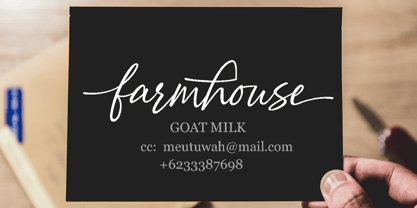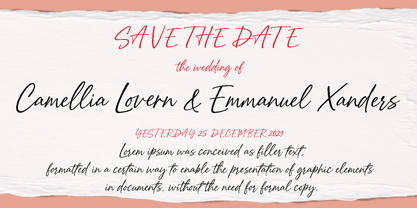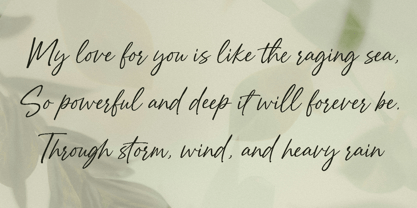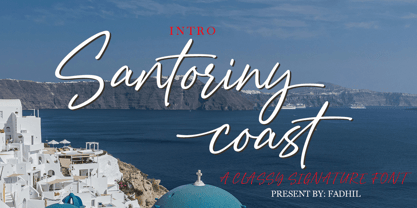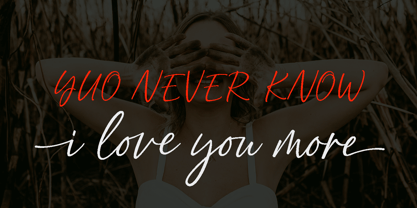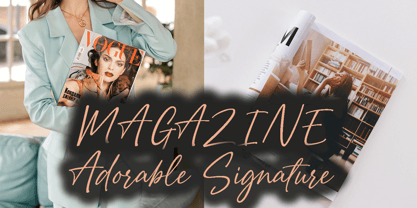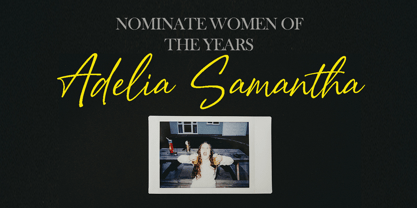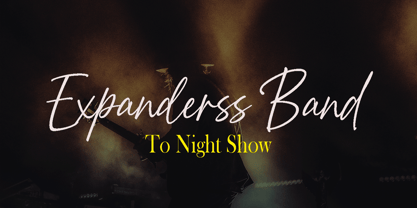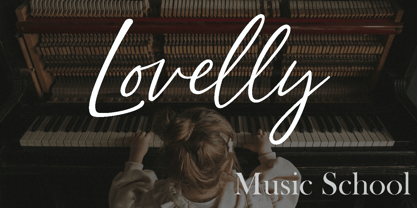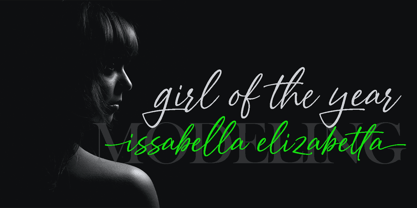
Santoriny Coast
by Meutuwah
The Santoriny Coast Font Family was designed by Fadhil Aqsa and published by Meutuwah. Santoriny Coast contains 1 styles.
Santoriny Coast
Hello Font Lovers. Addam Signature, is another lovely modern script, signature and display font, which is combining the style of classic calligraphy with an modern style. combines from copperplate to contemporary typeface with a dancing baseline, modern and elegant touch. including alternates, and ligatures.
Can be used for various as headings, logos, wedding invitation, t-shirt, letterhead, lable, news, posters, badges etc.